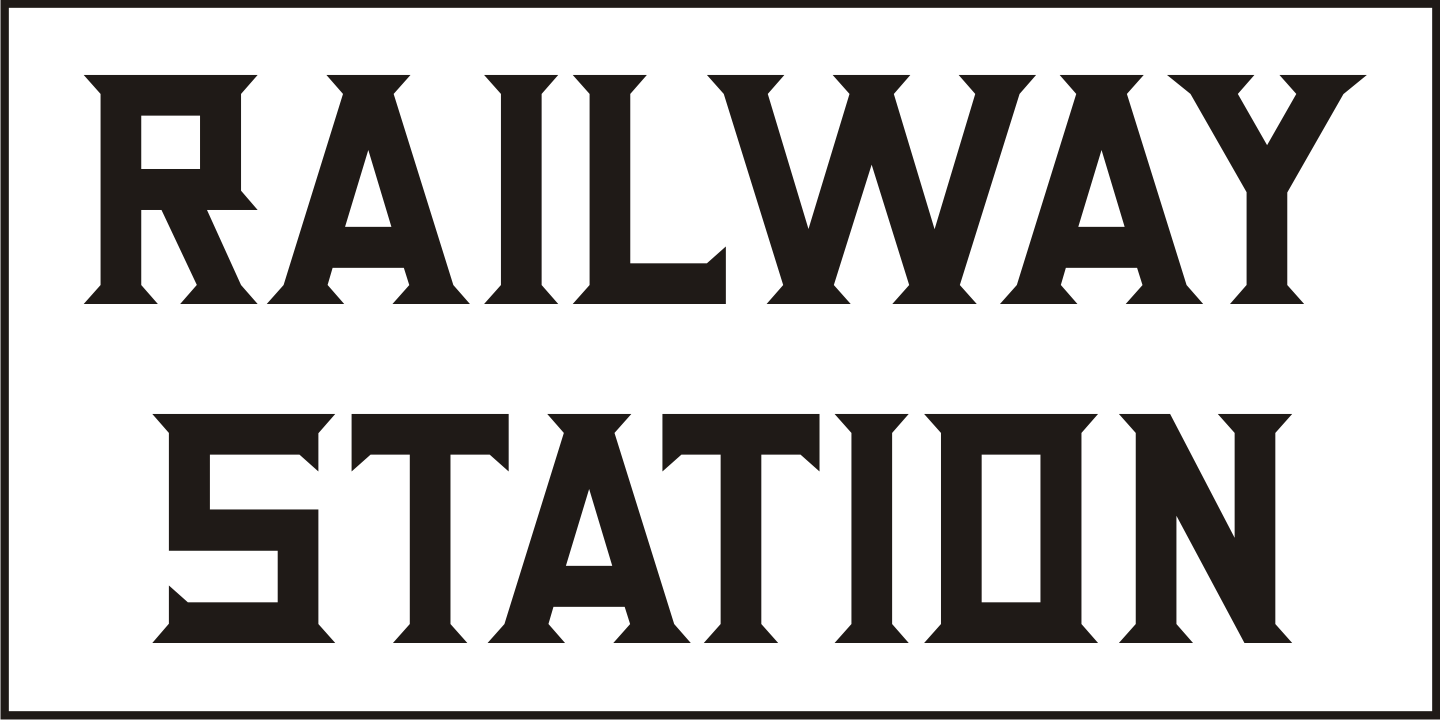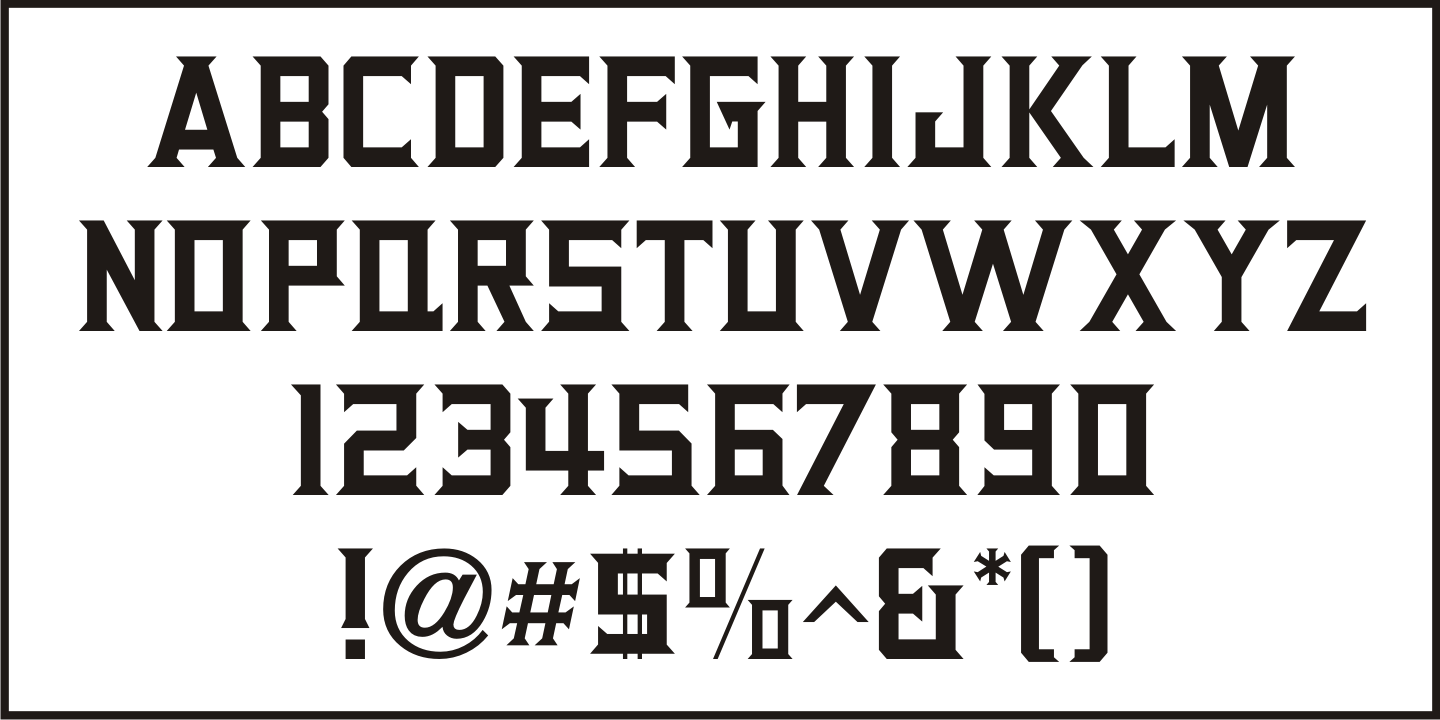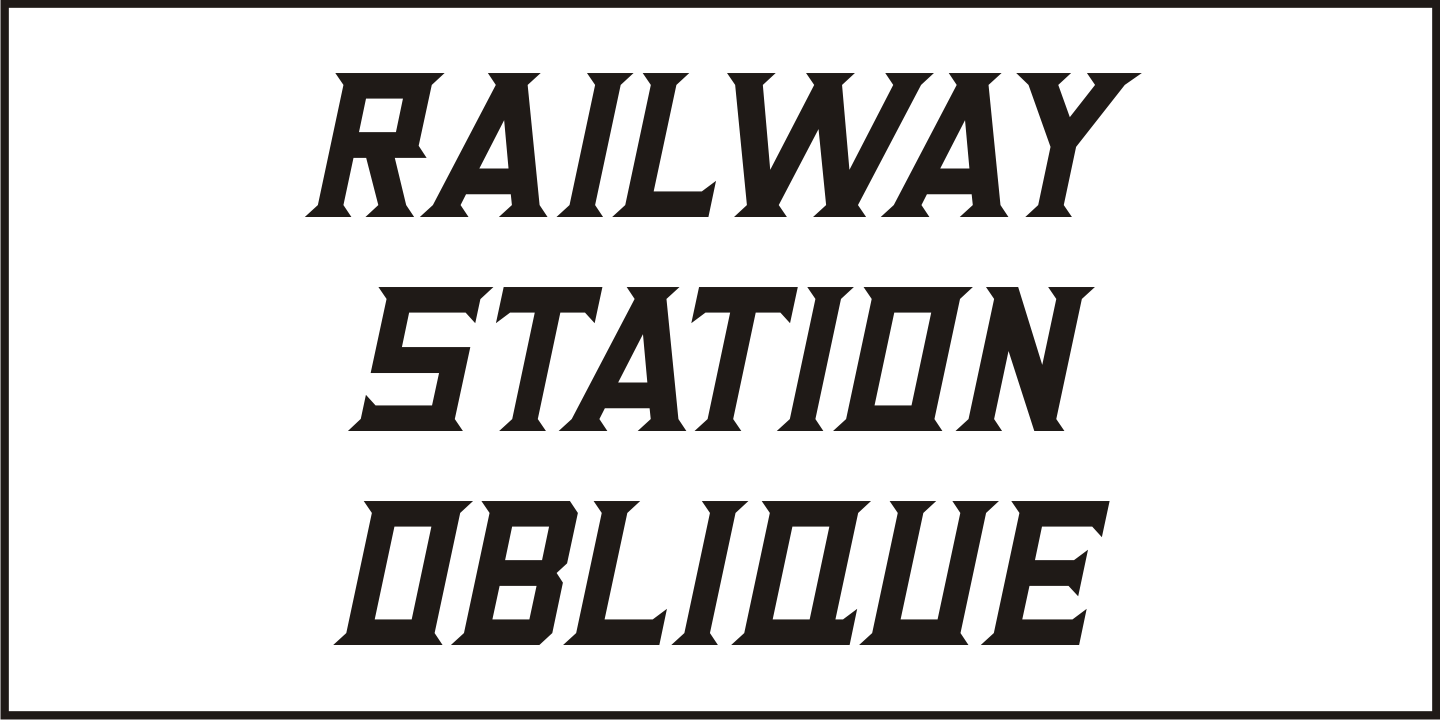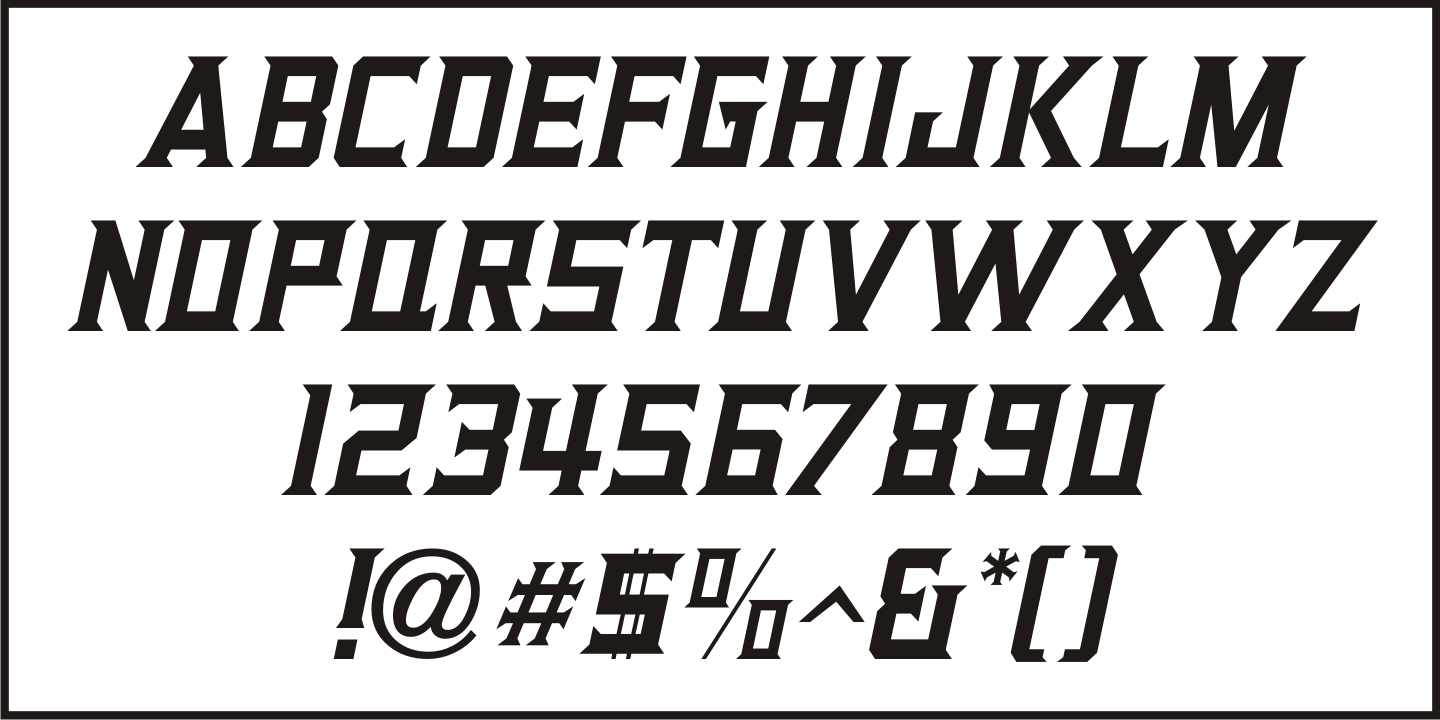
Railway Station
The hand lettered title on the 1911 sheet music for 'That Railroad Rag' was designed in a block style letter with spurred serifs. This simple typographic layout evokes the imagery of early rail transportation although the song itself is was a 'modern' composition of then-popular ragtime music.
Railway Station JNL is available in both regular and oblique versions.
Railway Station JNL Regular by Jeff Levine Fonts